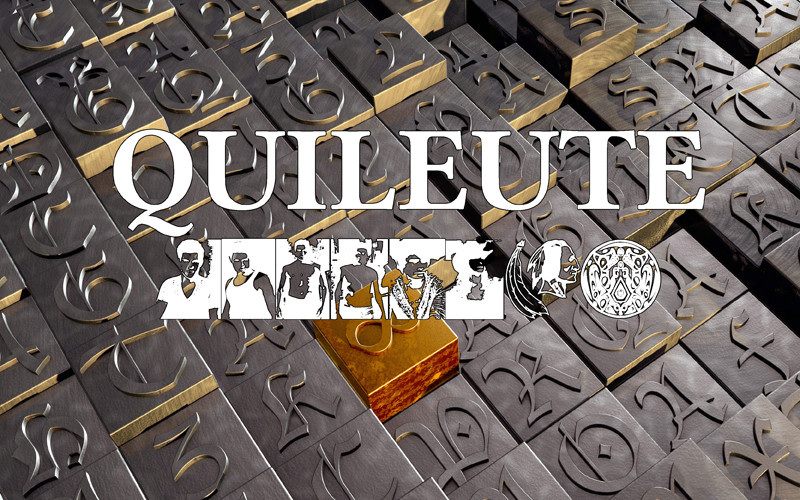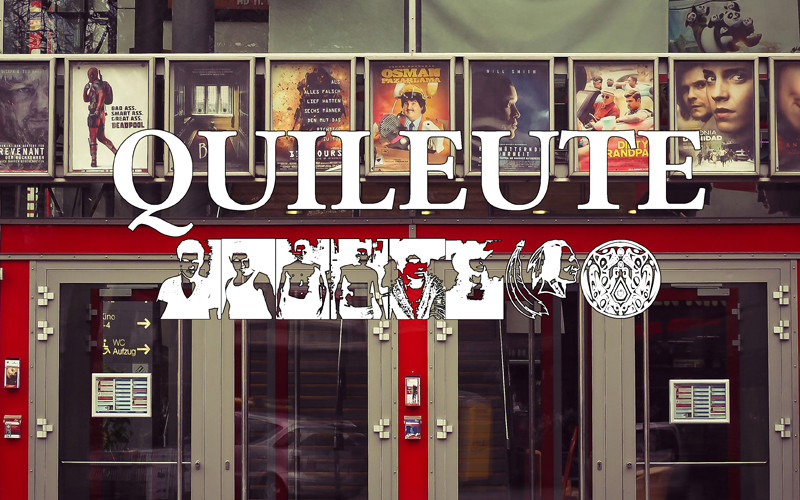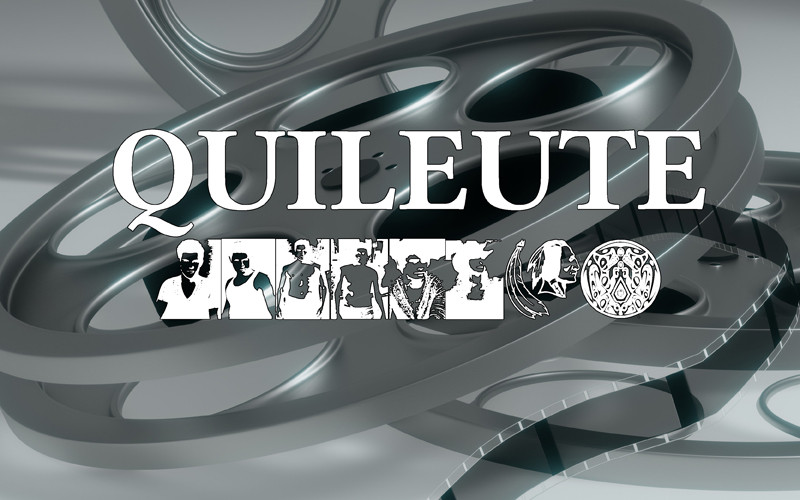
Directly from the film directed by Chris Weitz and starring TAYLOR LAUTNER, the new font for all fans of the film.
Direttamente dal film diretto da Chris Weitz e interpretato da TAYLOR LAUTNER, il font inedito per tutti gli estimatori del film.
Directly from the film directed by Chris Weitz and starring TAYLOR LAUTNER, the new font for all fans of the film.
Direttamente dal film diretto da Chris Weitz e interpretato da TAYLOR LAUTNER, il font inedito per tutti gli estimatori del film.